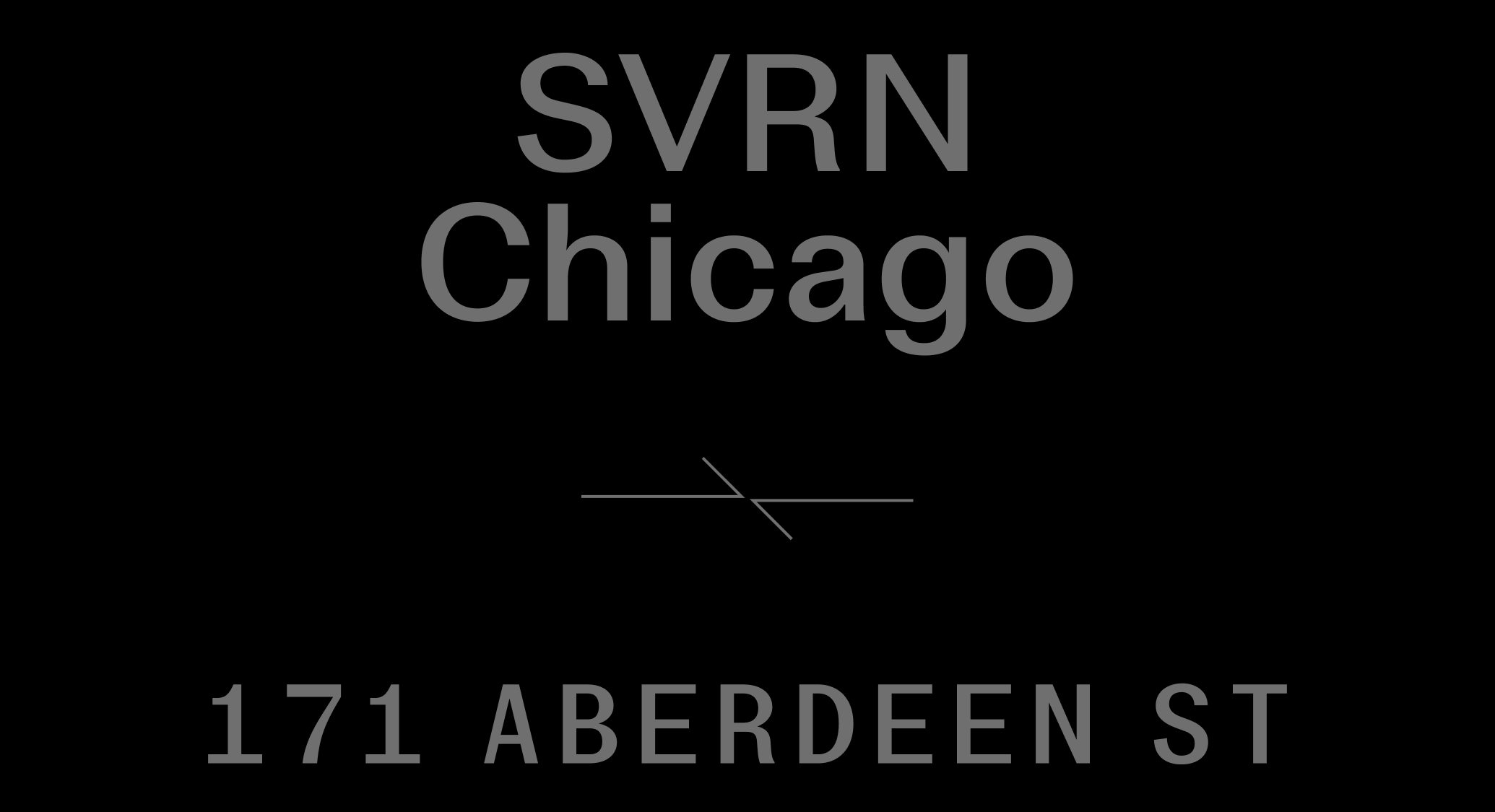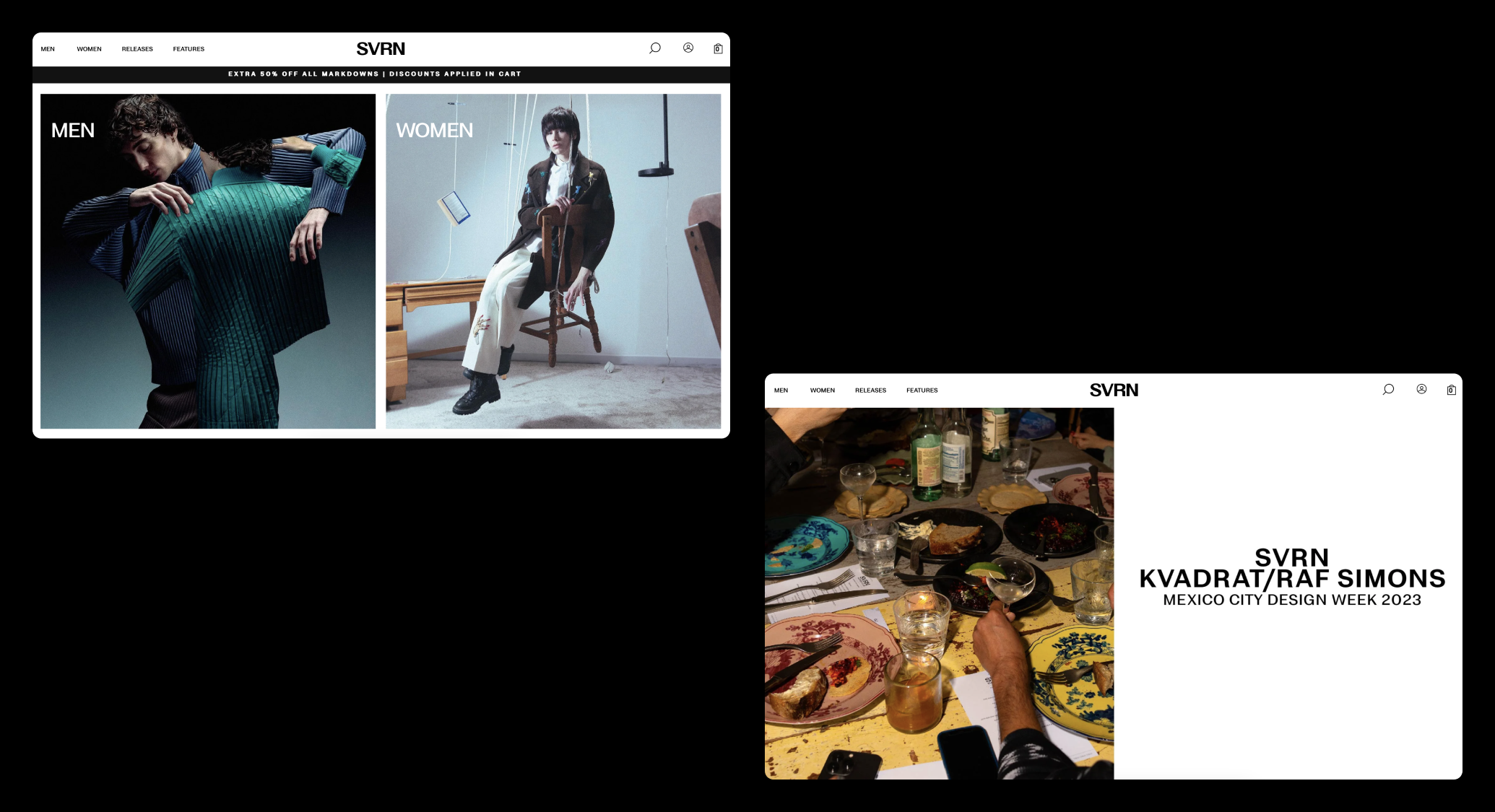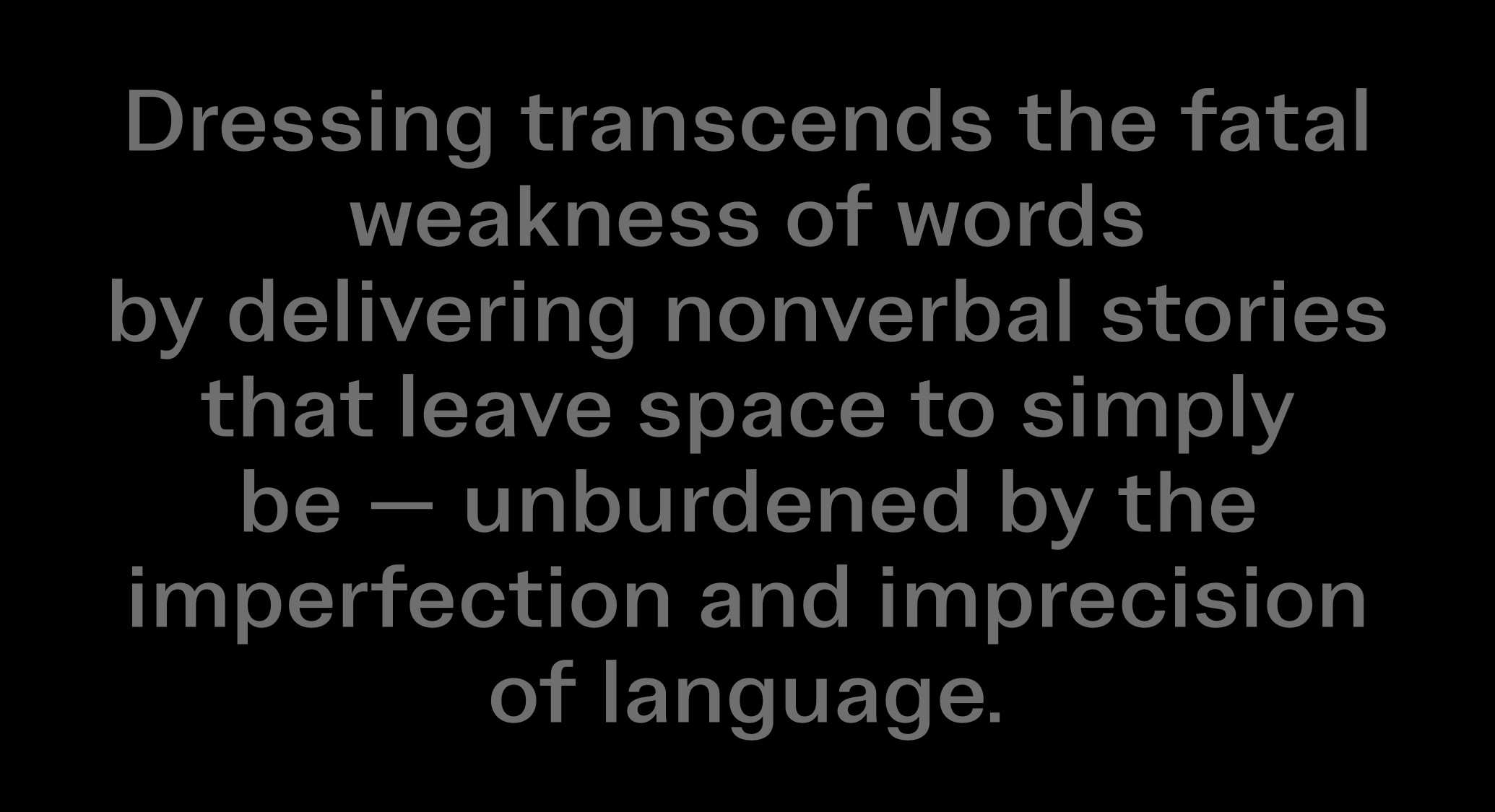
SVRN
SVRN Sans was fashioned expressly for the Chicago-based fashion retailer as part of a full brand identity refresh conducted by Abbr. Projects from 2021 to 2022. Read the full case study at Abbr. Projects.